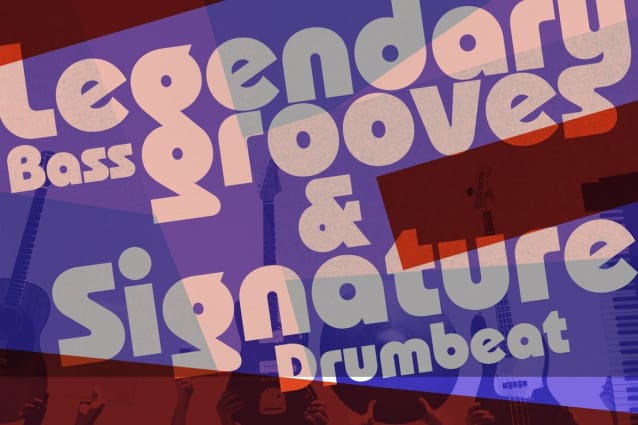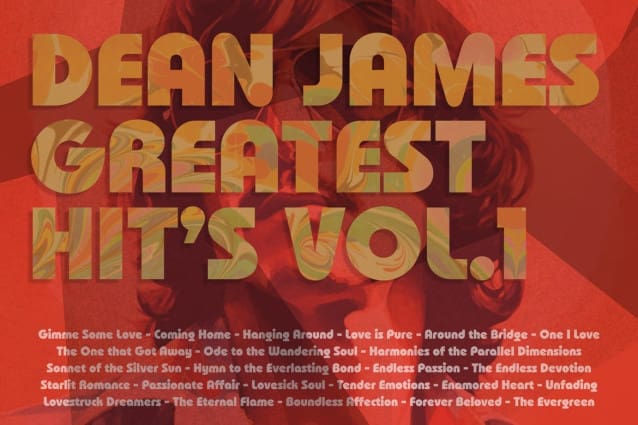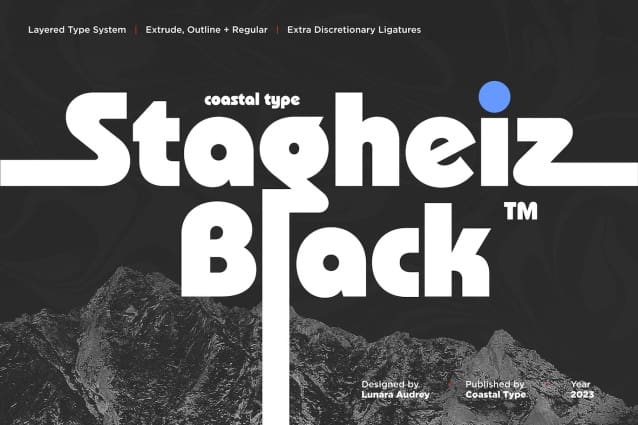
Stagheiz Black Font
Stagheiz Black Font, where simple geometric shapes and an ode to the bold strokes of 70s vinyl titles converge. With its unique touch of discretionary ligatures, Stagheiz breathes life into contemporary graphic designs, infusing them with a delightful blend of playfulness and sophistication. Its rounded and eccentric geometric gyrations are a guaranteed head-turner, intended to captivate audiences when showcased prominently in headlines and other prominent display mediums.